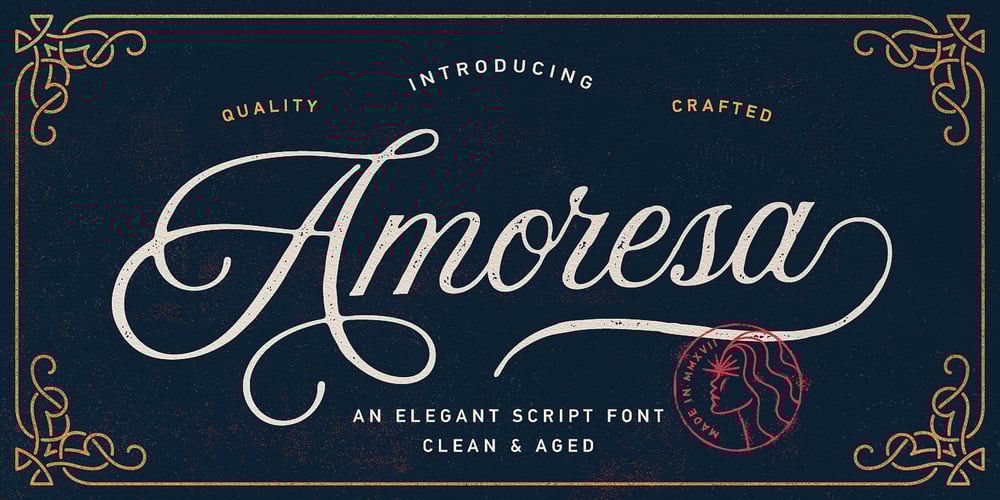
Amoresa Font Family was designed by Andrey Sharonov and published by Andrey Sharonov. Amoresa contains 2 styles and family package options. Amoresa script was handwritten under inspiration of traditional calligraphy and the wonderful mystic soundtrack of Wojciech Kilar. This font comes with a clean and aged version, beautiful uppercase and lowercase alternates, ligatures and end-swashes. You can easy get alternate characters just by adding number 2, 3, or 4 after any uppercase. Each of them has from one to four stylistic alternates. Lowercase has alternates too. Aurora has eight lengths of end-swashes. Just add underscore and a number from 1 to 8 after any letter at the end of the word ( _1 _2 _3 … _8). Amoresa has multi-lingual support (Western European characters) for the following languages: English, Danish, Dutch, Estonian, Faroese, Filipino, Finnish, French, German, Hungarian, Icelandic, Irish, Italian, Norwegian, Polish, Portuguese, Spanish, Swedish. In my examples I show how this script can be used. It’s very well suited for logotypes, wedding invitations, alcohol labels, romantic cards and others. Recommended to use in Adobe Illustrator or Photoshop. The special features don’t work in Microsoft Word.